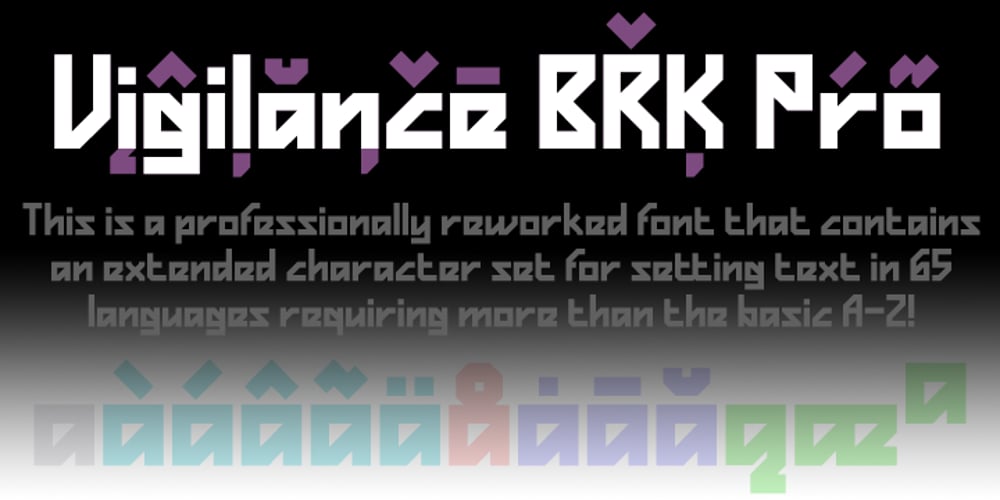
Vigilance BRK Pro Font Family was designed by Roger S. Nelsson, Brian Kent and published by CheapProFonts. Vigilance BRK Pro contains 1 styles and family package options. A very angular font, not one curve in sight – it’s hip to be square! The font includes quite a few alternate letterforms, which I’ve also made available in combinations with diacritics. These alternates are available via your programs’ glyph palette or using the OpenType functions “Stylistic Alternates” and/or “Stylistic Sets ss01-ss04”. ALL fonts from CheapProFonts have very extensive language support: They contain some unusual diacritic letters (some of which are contained in the Latin Extended-B Unicode block) supporting: Cornish, Filipino (Tagalog), Guarani, Luxembourgian, Malagasy, Romanian, Ulithian and Welsh. They also contain all glyphs in the Latin Extended-A Unicode block (which among others cover the Central European and Baltic areas) supporting: Afrikaans, Belarusian (Lacinka), Bosnian, Catalan, Chichewa, Croatian, Czech, Dutch, Esperanto, Greenlandic, Hungarian, Kashubian, Kurdish (Kurmanji), Latvian, Lithuanian, Maltese, Maori, Polish, Saami (Inari), Saami (North), Serbian (latin), Slovak(ian), Slovene, Sorbian (Lower), Sorbian (Upper), Turkish and Turkmen. And they of course contain all the usual “western” glyphs supporting: Albanian, Basque, Breton, Chamorro, Danish, Estonian, Faroese, Finnish, French, Frisian, Galican, German, Icelandic, Indonesian, Irish (Gaelic), Italian, Northern Sotho, Norwegian, Occitan, Portuguese, Rhaeto-Romance, Sami (Lule), Sami (South), Scots (Gaelic), Spanish, Swedish, Tswana, Walloon and Yapese.